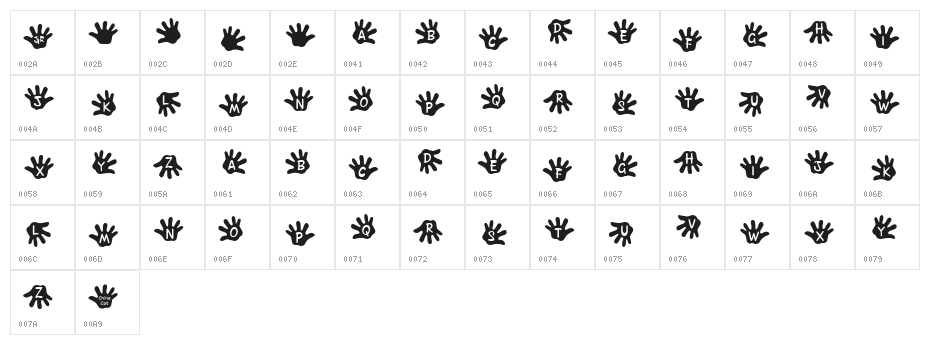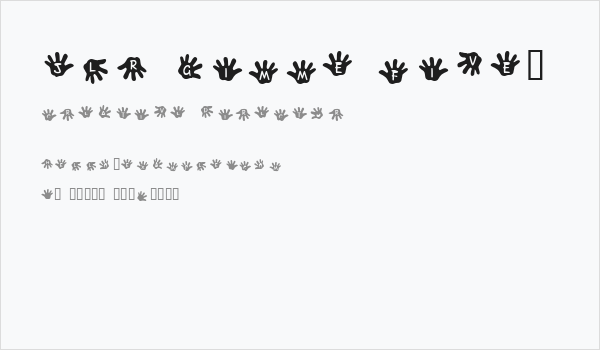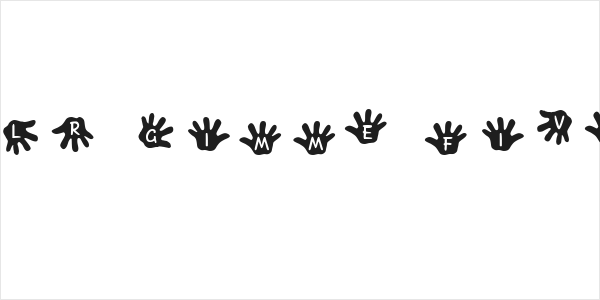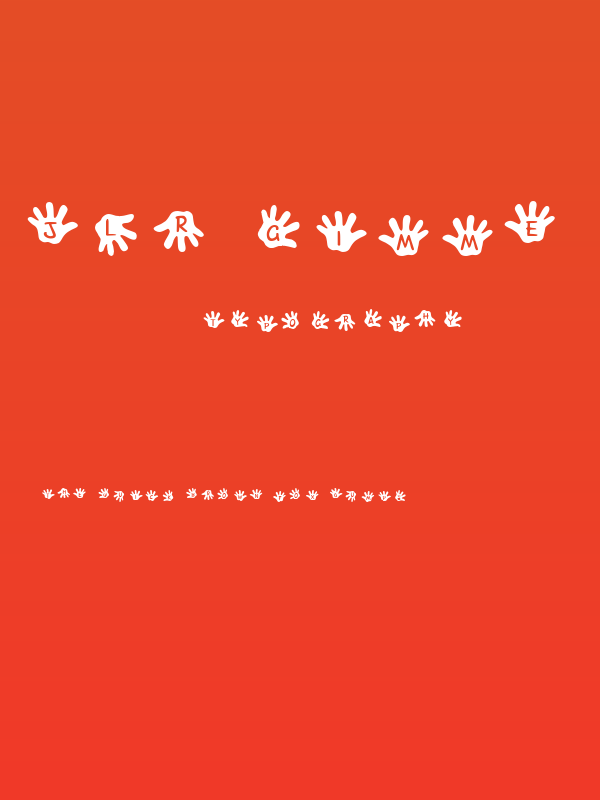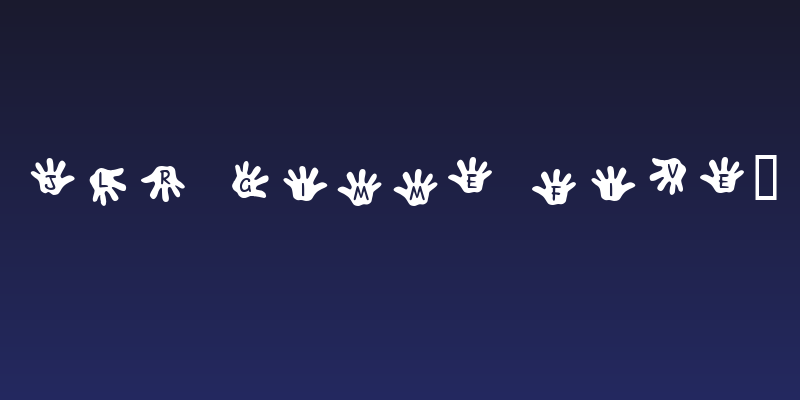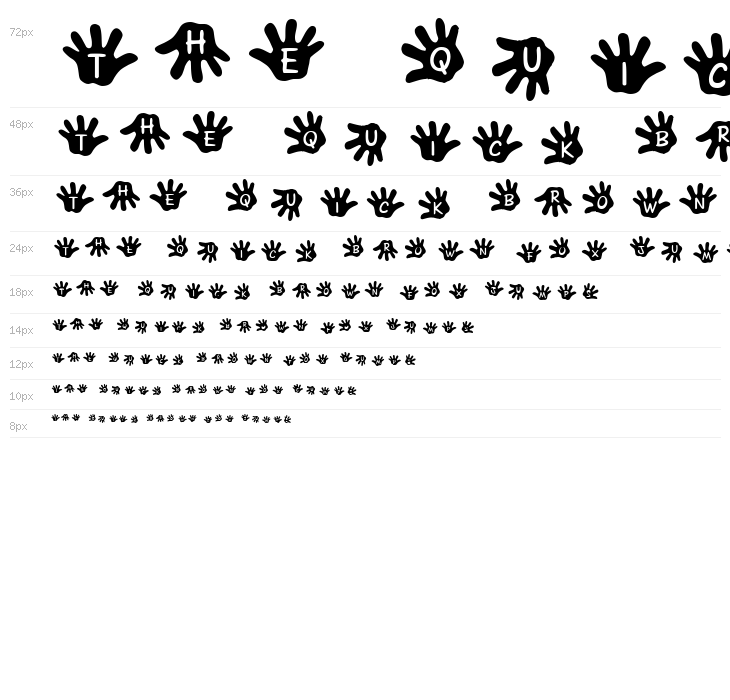
JLR Gimme Five! Font
JLR Gimme Five! Description
This playful and whimsical font features characters that resemble handprints, each letter and symbol creatively integrated into the palm and fingers. The design is bold and eye-catching, making it ideal for projects that require a fun and informal touch. The characters are evenly spaced, ensuring readability despite their unique shapes. This font is perfect for children's materials, playful branding, or any project that seeks to convey a sense of fun and creativity.
Overall StylePlayful, Whimsical
Proposed ProjectsChildren's books, playful branding, educational materials, party invitations, and creative posters.